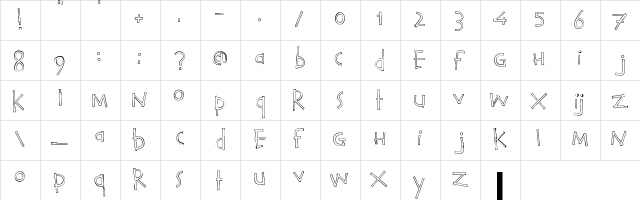
Calvin and Hobbes Outline
| Style | Outline |
| Foundry | Calvin and Hobbes at Martijn's |
| Designer | Martijn Reemst |
Design Context for Calvin and Hobbes Typeface
Calvin and Hobbes is built around its visual character rather than neutral utility — its distinctive forms are designed to make an impression at display sizes.